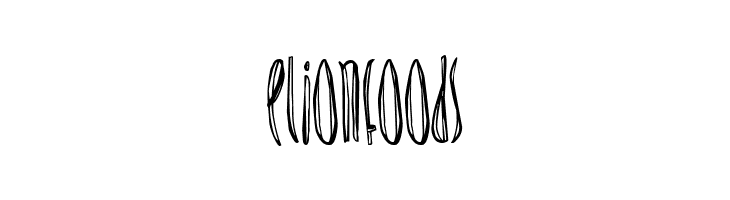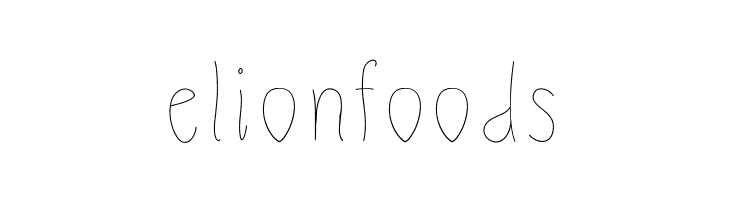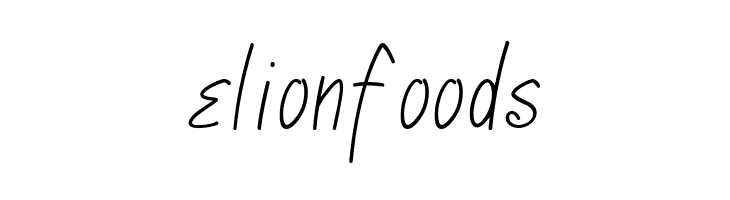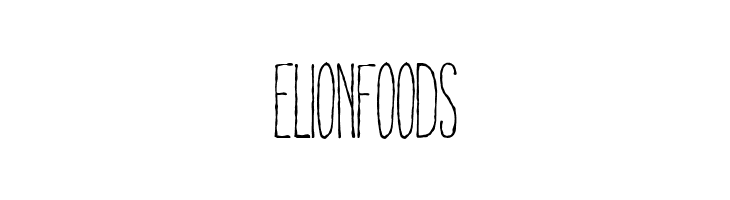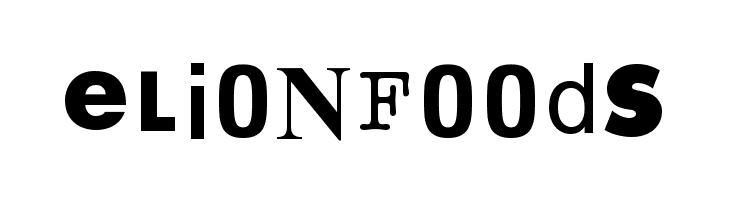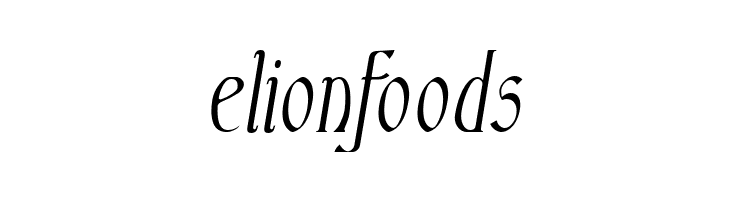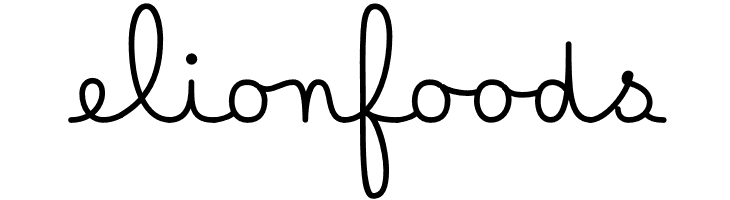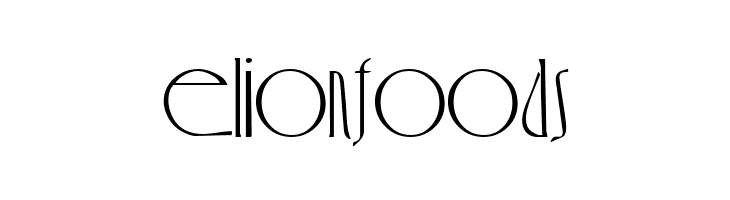
( Daniel Plant - www.fontmonster.org )
An artistic, incised font with elongated, narrow characters and a modern, decorative style.
( Daniel Plant - www.fontmonster.org )
A modern, ultra-thin unicase font with elongated, elegant characters.
( Dimka.com - dimka.com/fonts )
A thin, whimsical handwritten font with a playful and informal style.
( Edward Leach )
A casual handwritten font with smooth, flowing strokes and a lively appearance.
( Fargoboy - type.fargoboy.com )
A tall, narrow, hand-drawn font with a whimsical and artistic style.
( Footnote Fonts )
A playful and eclectic font with diverse character styles and bold numbers.
( George Williams - web.archive.org/web/20051223080638/bibliofile.mc.duke.edu/gww/fonts/fonts.html )
An elegant, italicized font with medium contrast and flowing design.
( JBFoundry - jean.boyault.pagesperso-orange.fr )
A playful and elegant script font with a handwritten feel.
( James Fordyce )
An elegant and artistic font with unique curves and sharp edges, perfect for sophisticated designs.
( Kat and Taylor! )
A playful, hand-drawn font with elongated, narrow characters.